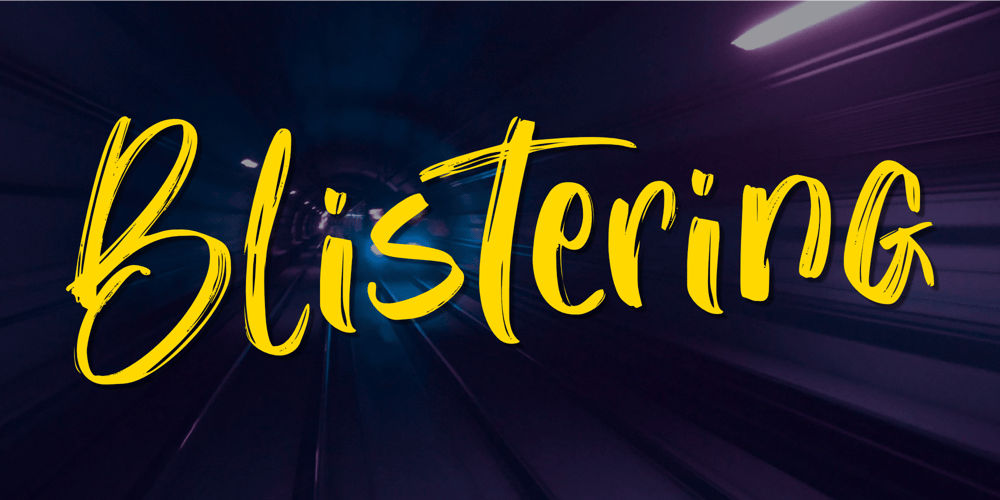
Blistering Font Family was designed by Nurul Hidayani and published by Olivetype. Blistering contains 1 styles and family package options. Say hello to Blistering, a cool and versatile brush typeface that can make any design stand out. With its scratchy texture and care free feel, this font can be used for any design style or project. Whether you need an energetic typeface for logos, a hipster font for a clothing line, or a retro brush font for branding. Blistering has the personality to fit any style.So what’s included : Basic Latin Uppercase and Lowercase Numbers, symbols, and punctuations Ligatures Multilingual Support Simple Installations Works on PC & Mac